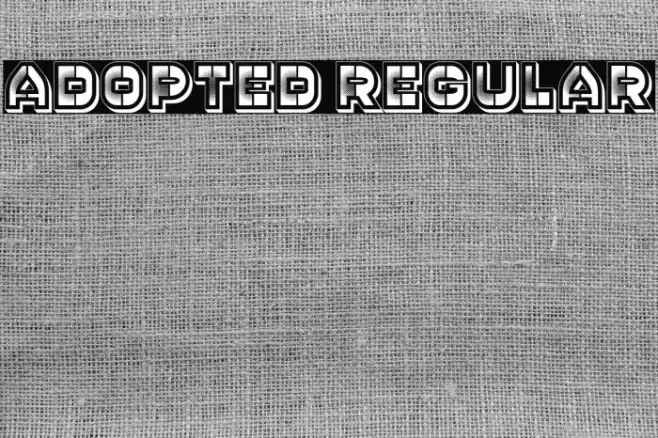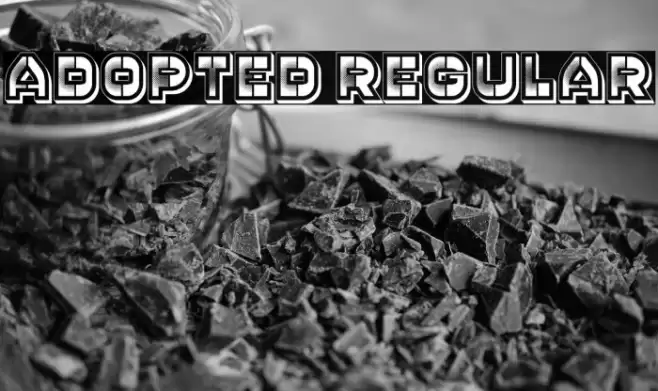
Adopted Regular Font
Adopted Regular Description
This font features a bold, three-dimensional appearance with a distinct shadow effect that gives it a striking, impactful look. The characters are uppercase, with a geometric structure and a strong, solid form. The inner part of each letter is filled with a gradient pattern, adding depth and a modern touch. The outer edges are sharply defined, enhancing the font's boldness and making it stand out. This style is reminiscent of retro or vintage signage, yet it maintains a contemporary flair due to its clean lines and structured design.
A bold, three-dimensional font with a gradient fill and sharp edges from Uncategorized fonts.
- Proposed Projects: Ideal for poster designs, retro-themed branding, eye-catching headlines, and logo creation.
- Overall Style: Retro, Modern